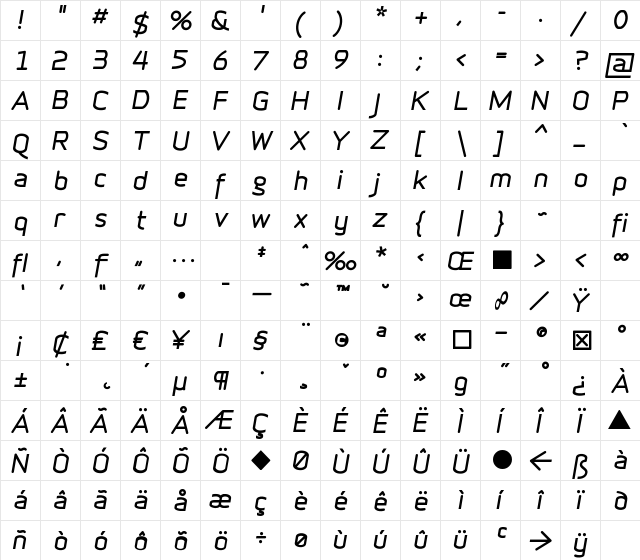
Infinity-T-BI Regular
Design Context for Infinity-T-BI Typeface
Infinity-T-BI offers clean, dependable letterforms without strong stylistic allegiance, making it a practical choice for designers who need flexibility.